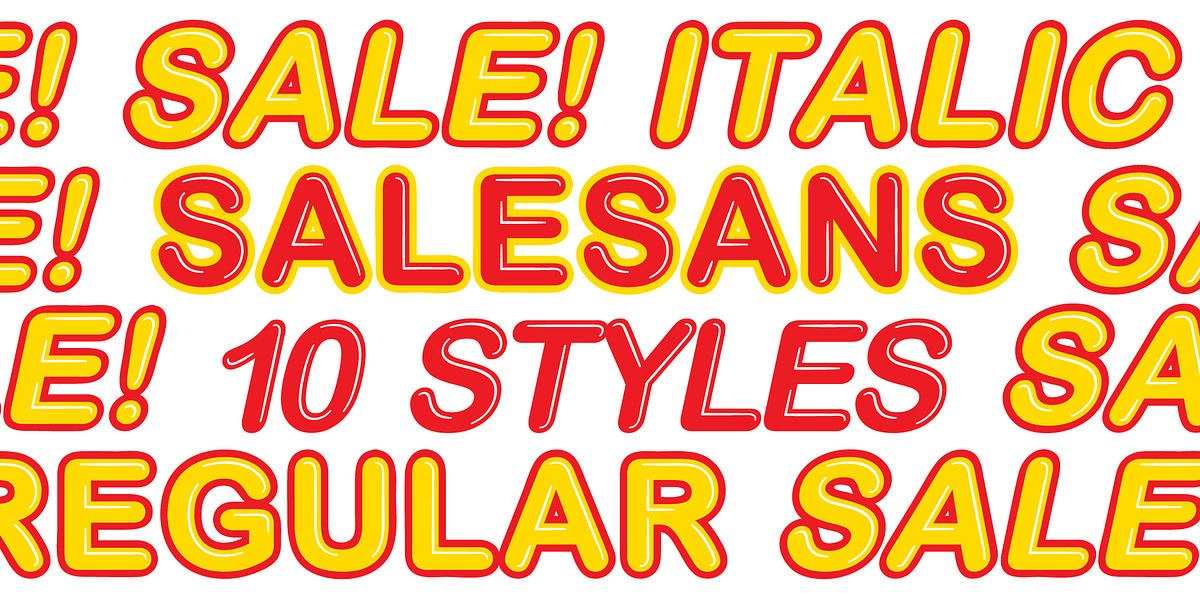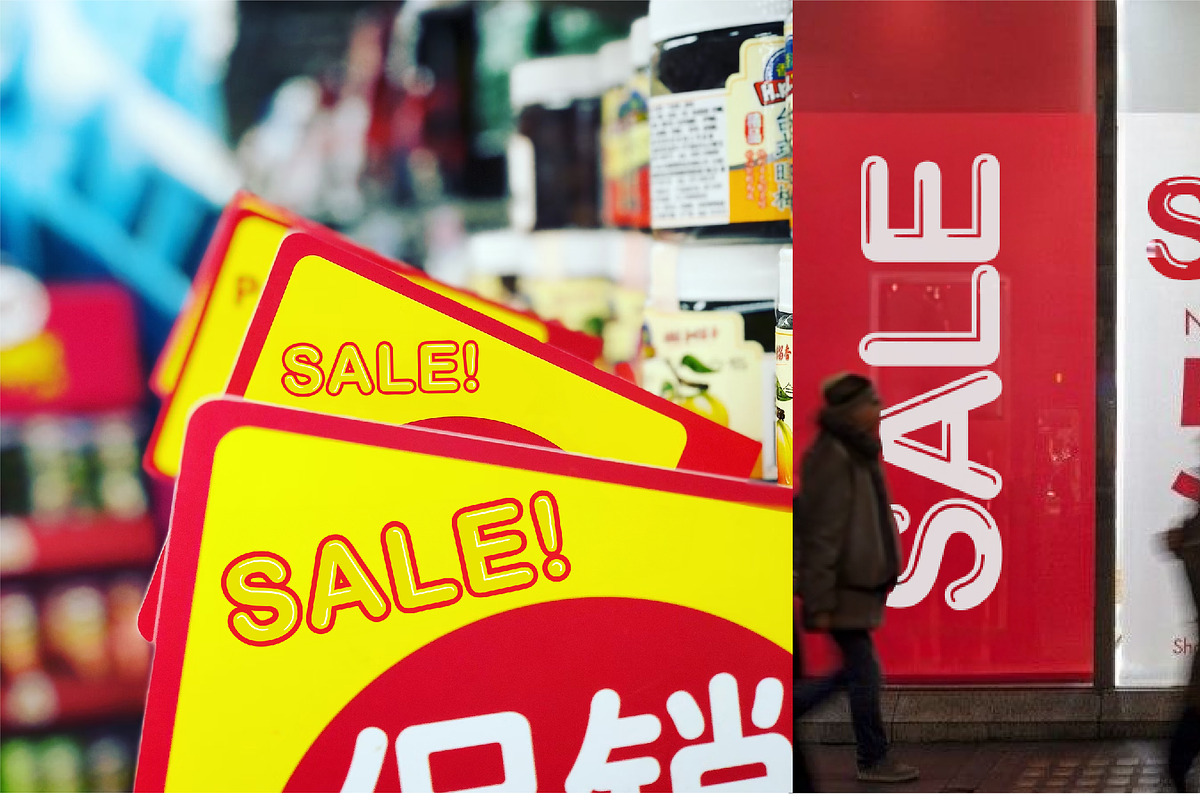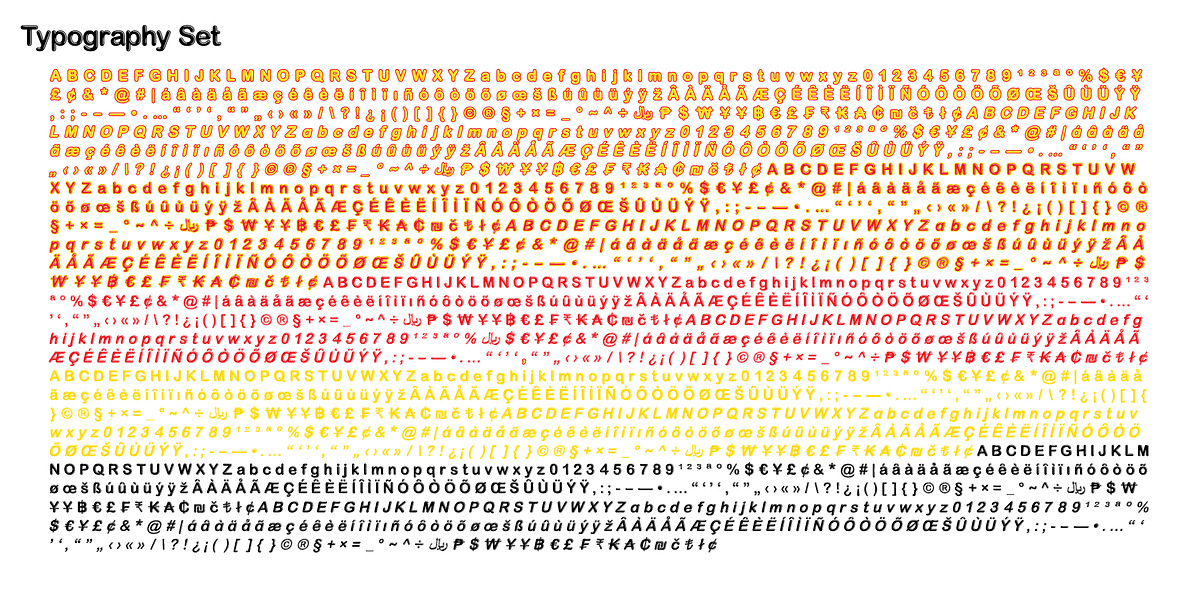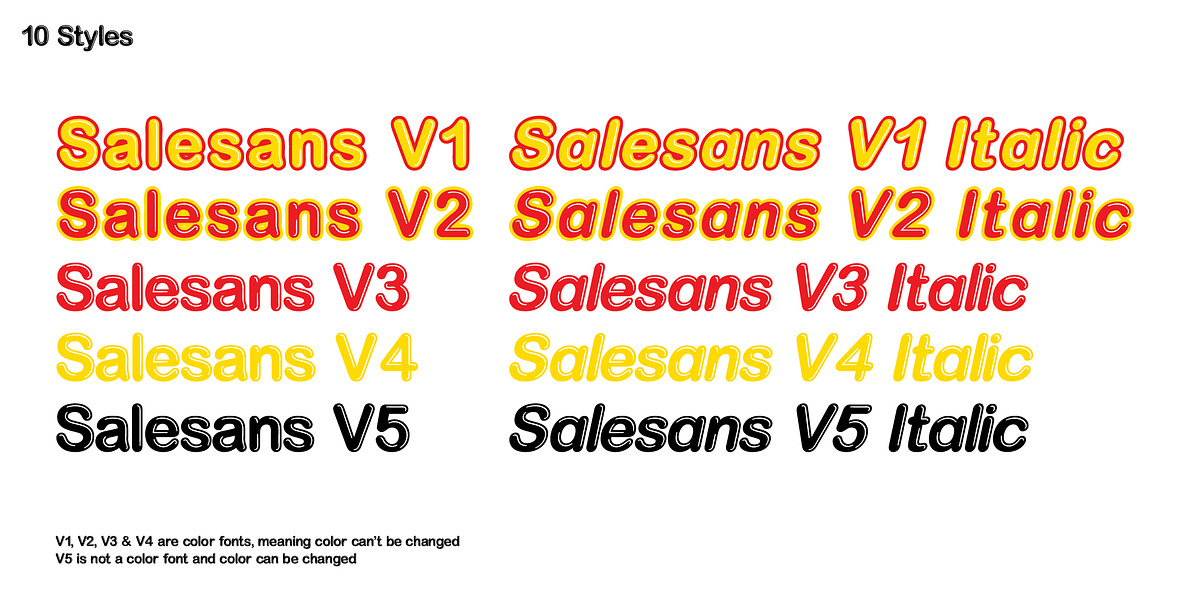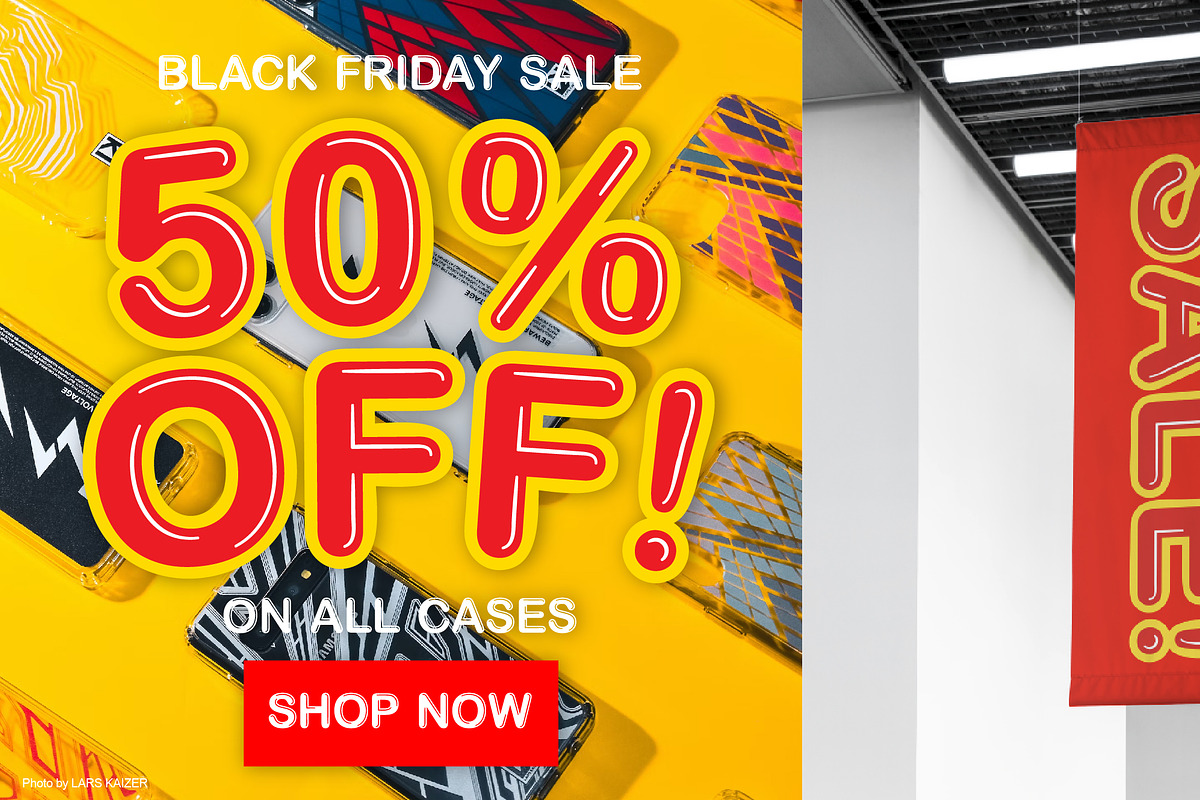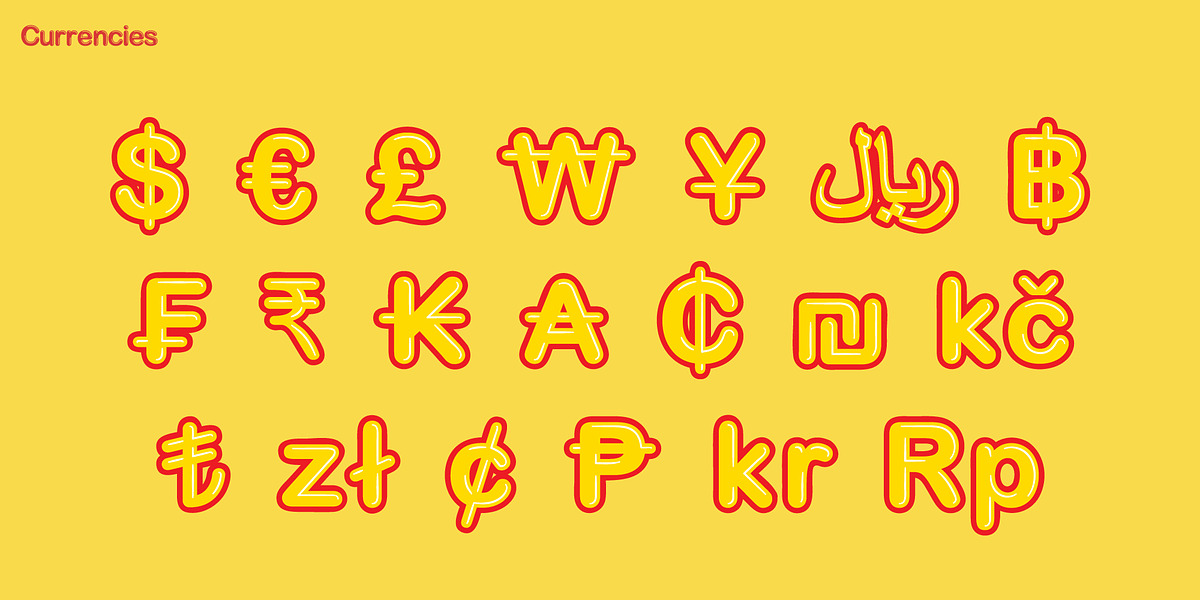
Salesans
Salesans is a modern display font designed for marketing and advertising. Its rounded sans-serif letterforms are bold and attention-grabbing, making it ideal for creating eye-catching ads, sales materials, and promotional content.